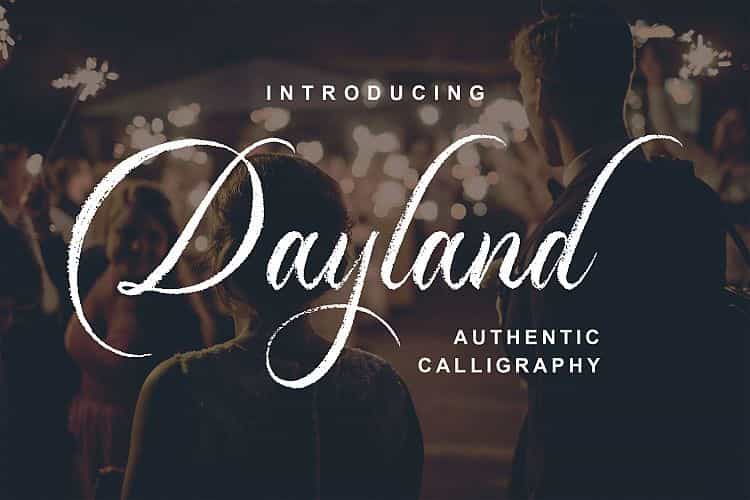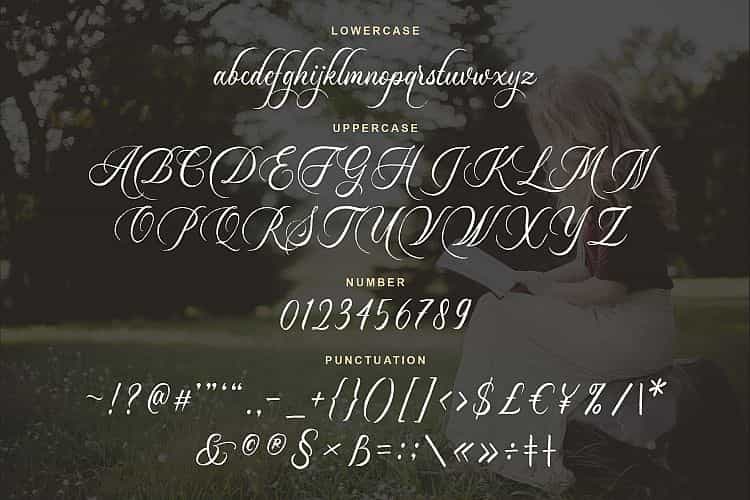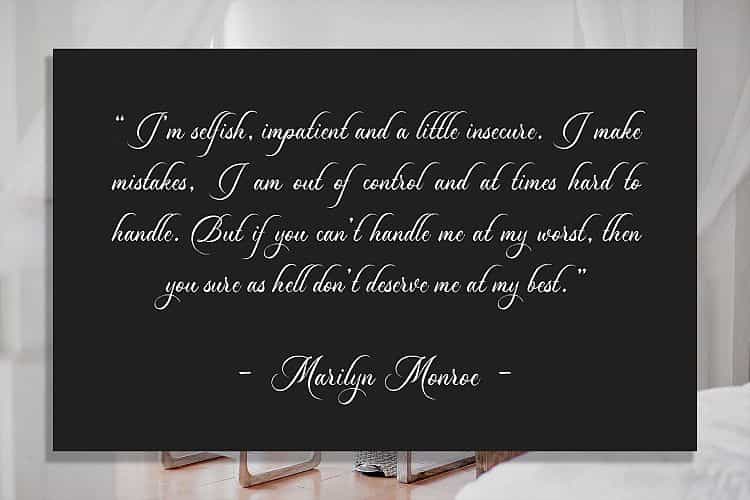
Introducing Dayland Font. This is a new contemporary script font with an asymmetrical baseline. Trendy and feminine style. I am sure that you will like this font and these add-ons and they will be a nice addition to your font collection. It is created and posted by Blankids.